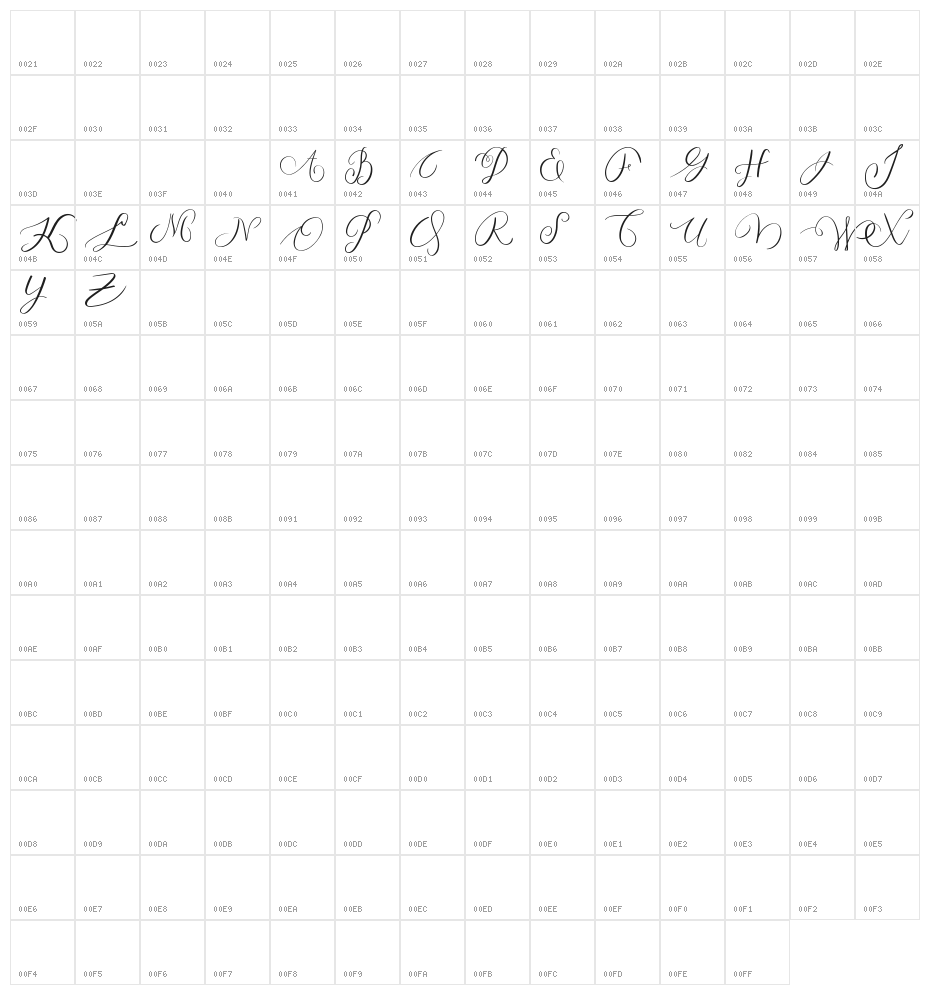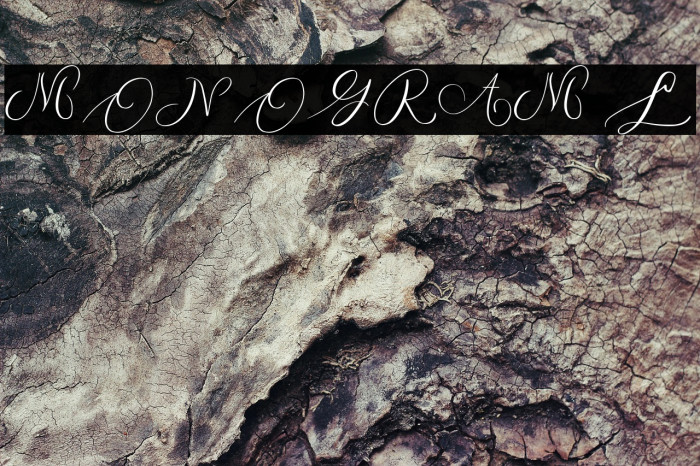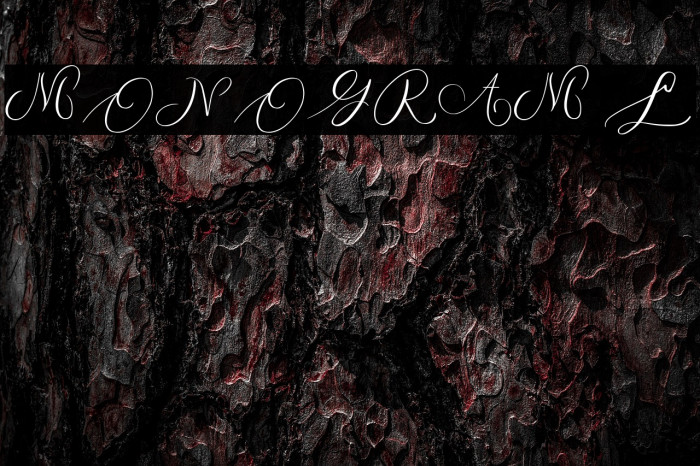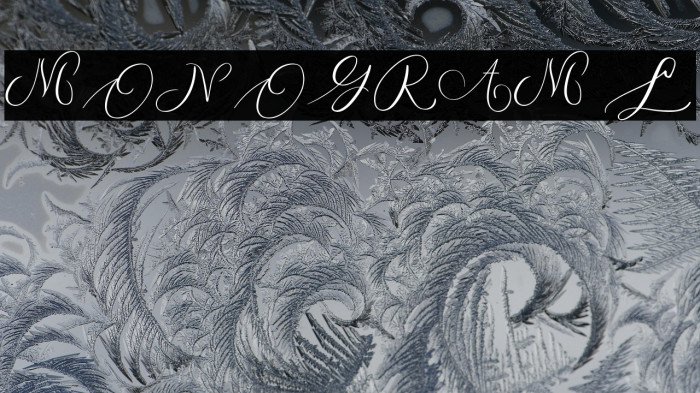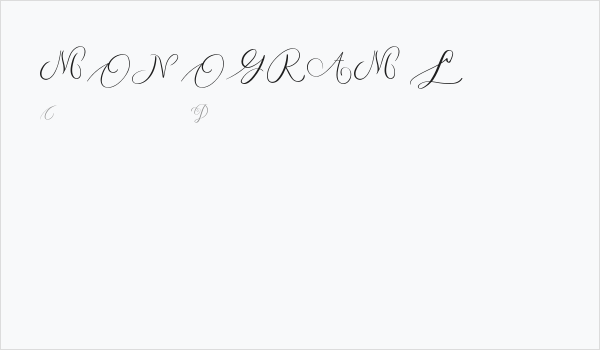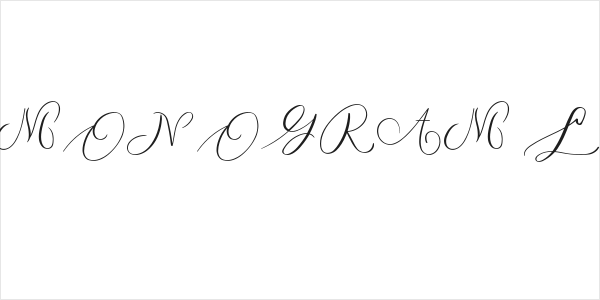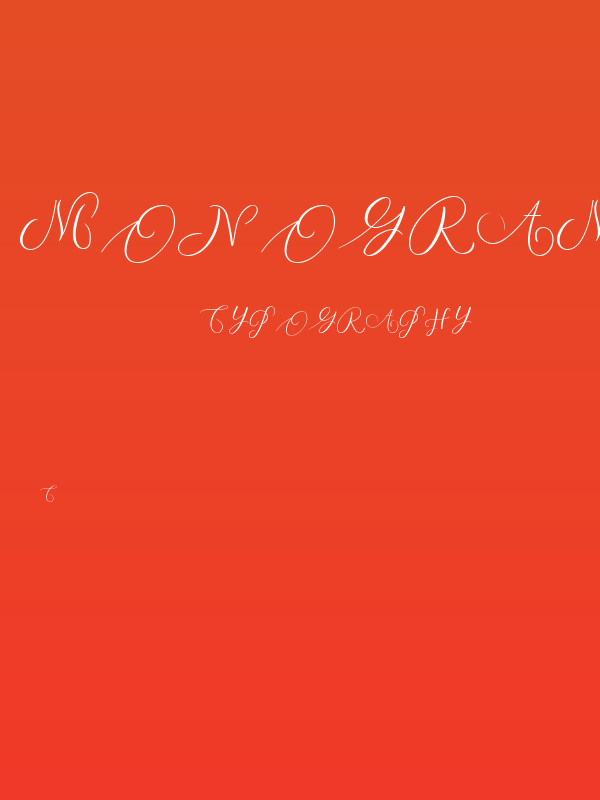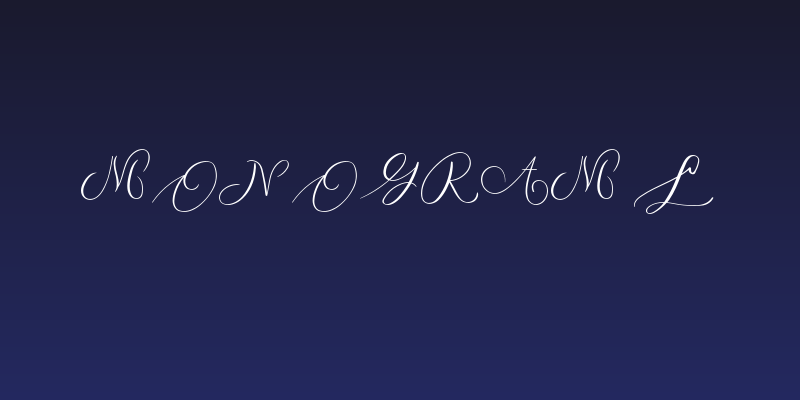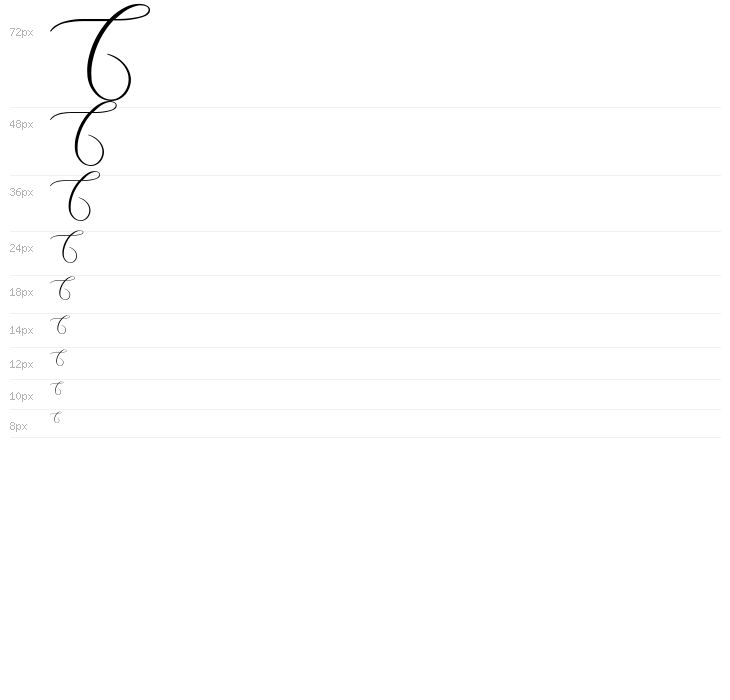
MONOGRAM L Font
MONOGRAM L Description
This elegant and sophisticated font features intricate, flowing script with elaborate swirls and loops, giving it a luxurious and refined appearance. The characters are highly decorative, with each letter exhibiting unique flourishes that add to the overall ornate style. The font maintains a consistent stroke width, contributing to its graceful and harmonious look. Its design is reminiscent of classic calligraphy, making it ideal for formal and high-end applications. The uppercase letters are particularly elaborate, with extended ascenders and descenders that enhance its decorative appeal.
| Use Case | Logos, Invitations, Monograms |
| Proposed Projects | Ideal for wedding invitations, luxury branding, monograms, and formal event programs. |